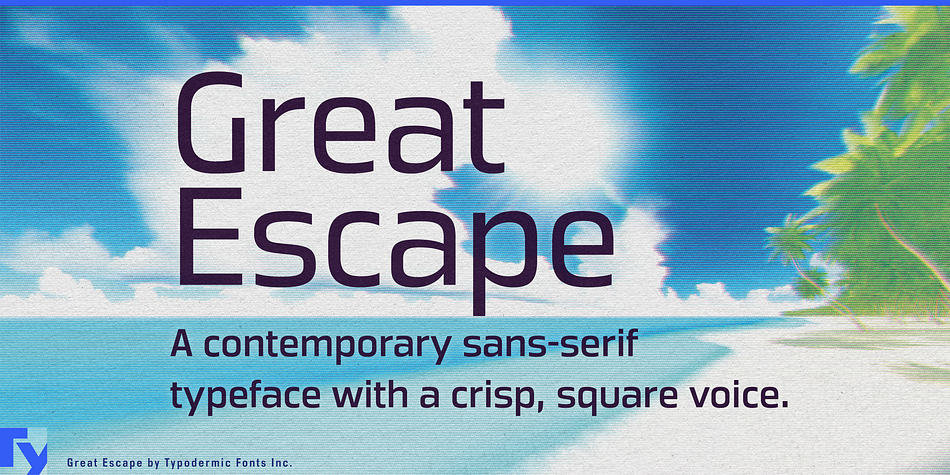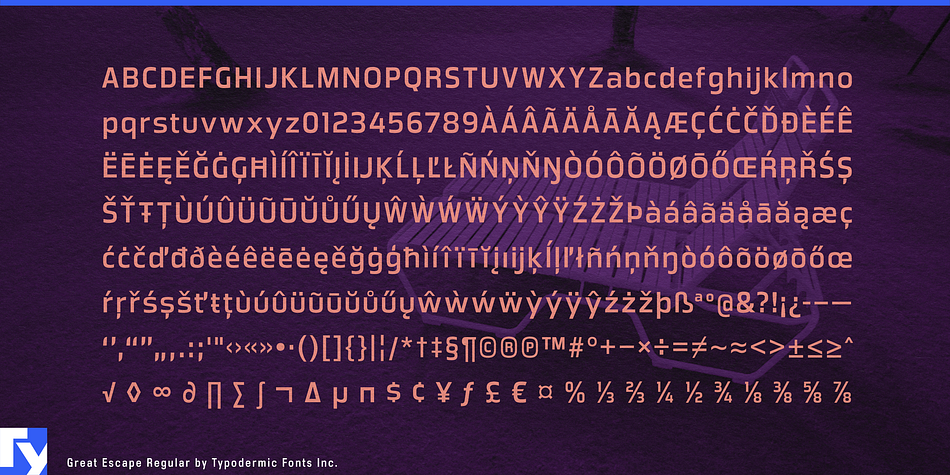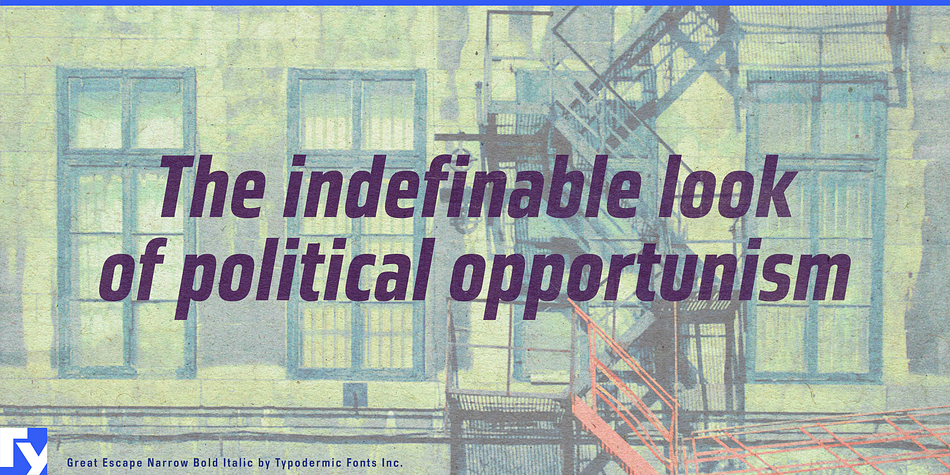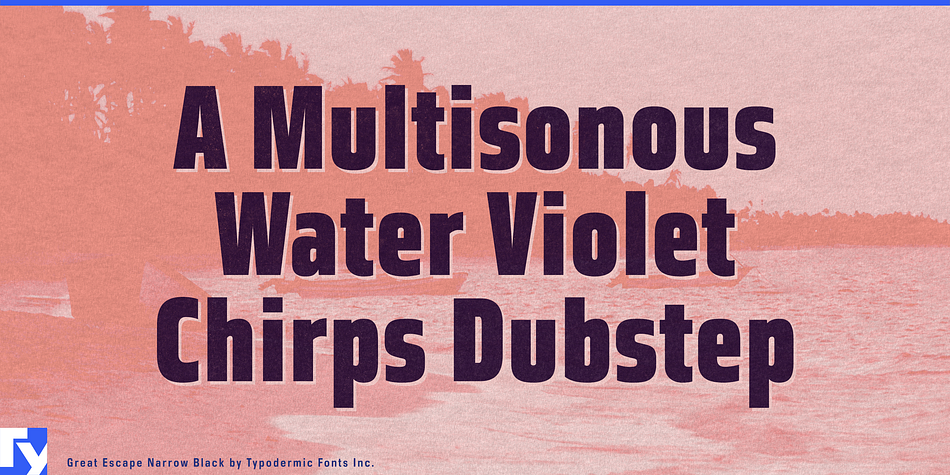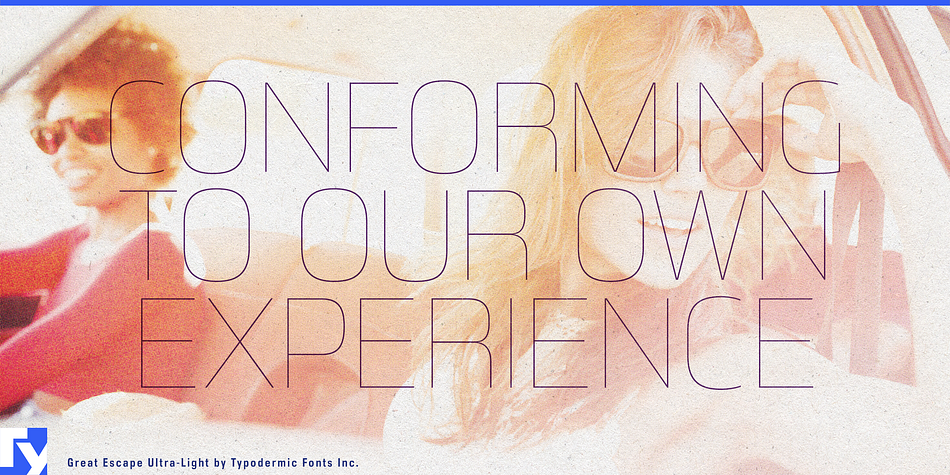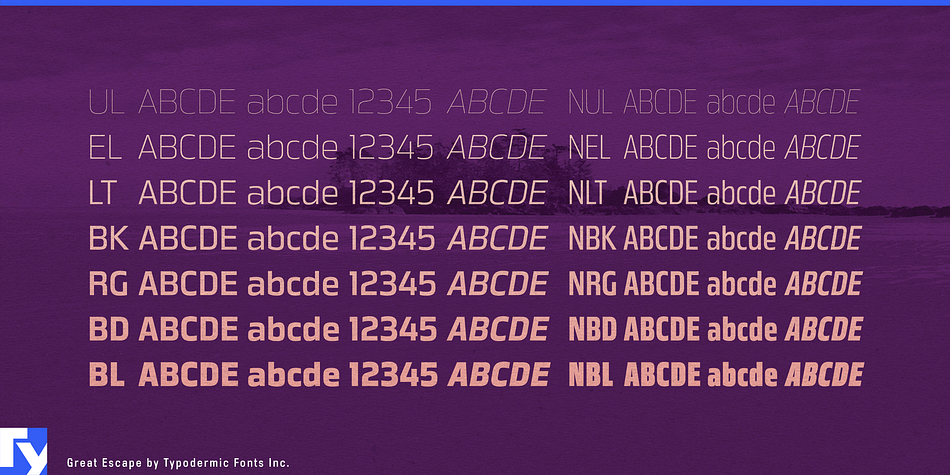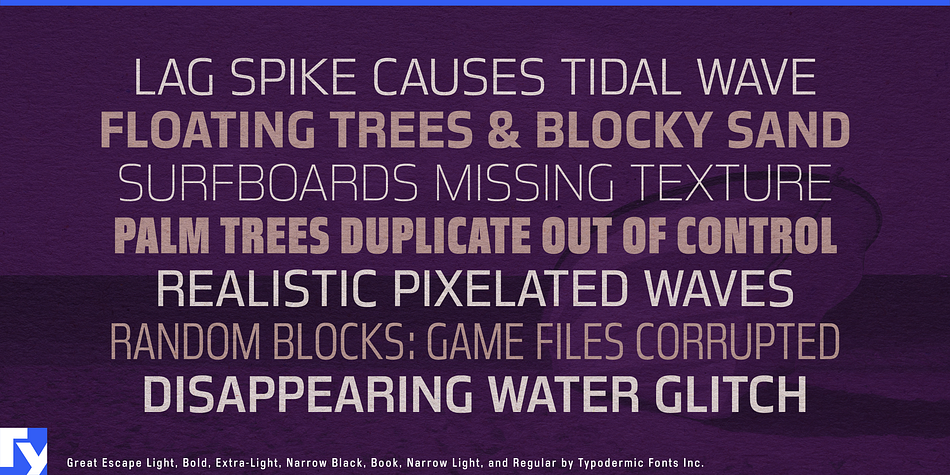
Great Escape is a sans serif font family. This typeface has twenty-eight styles and was published by Typodermic Fonts Inc.
Great Escape is a contemporary technical sans with a crisp, square voice. It’s available in 7 weights, 2 widths plus italics for a total of 28 styles.